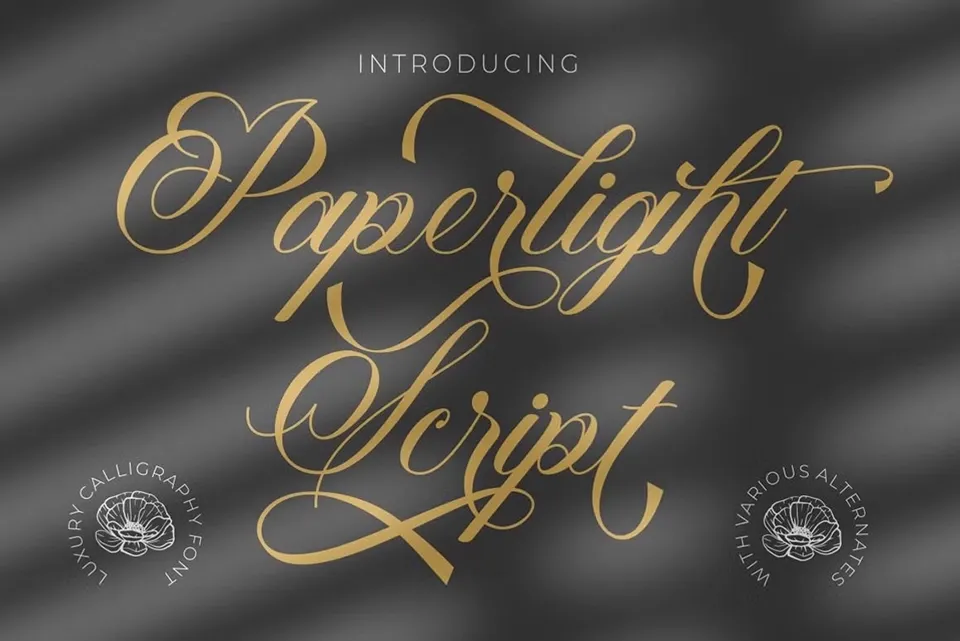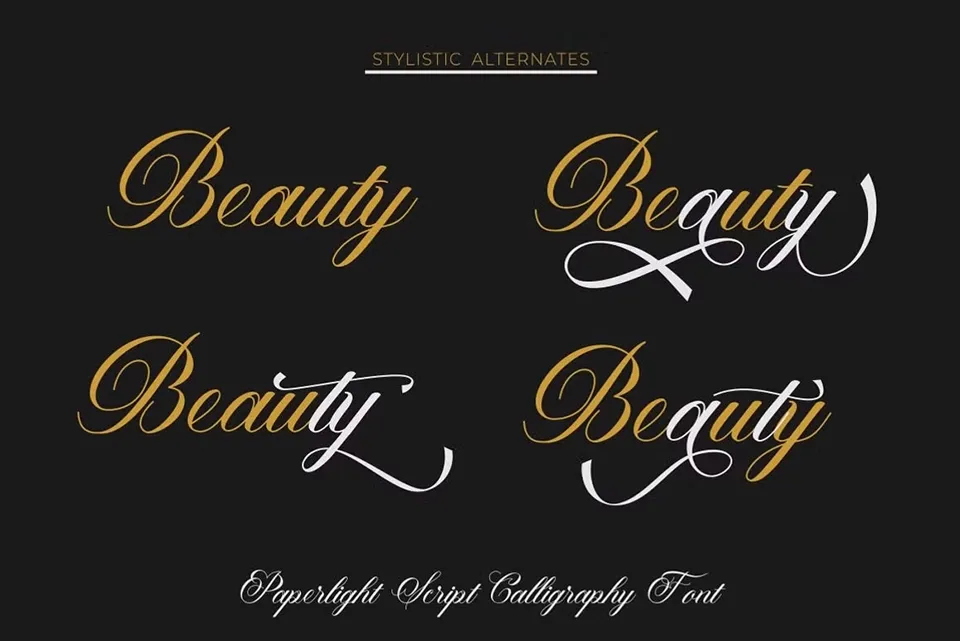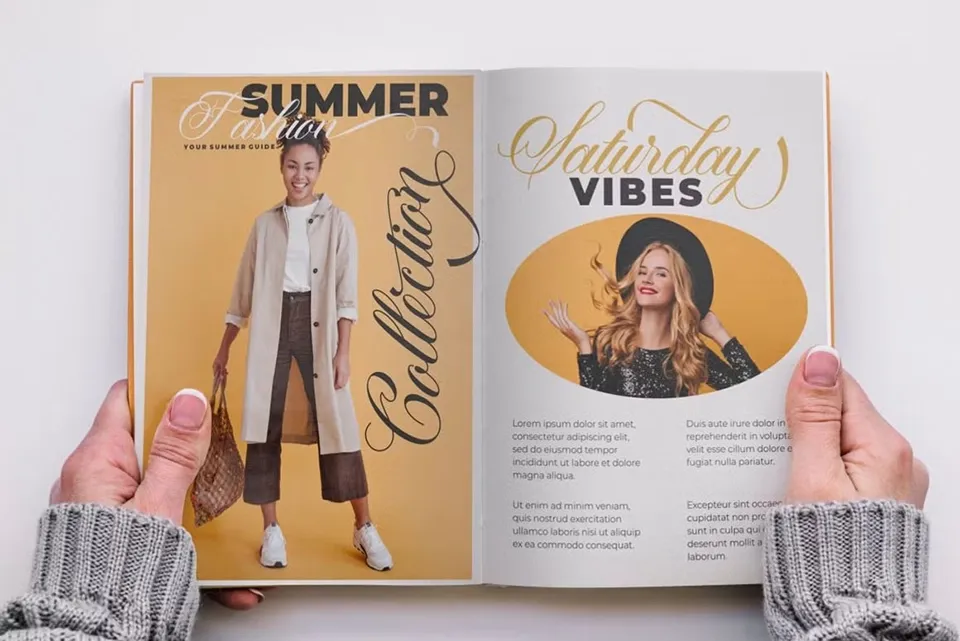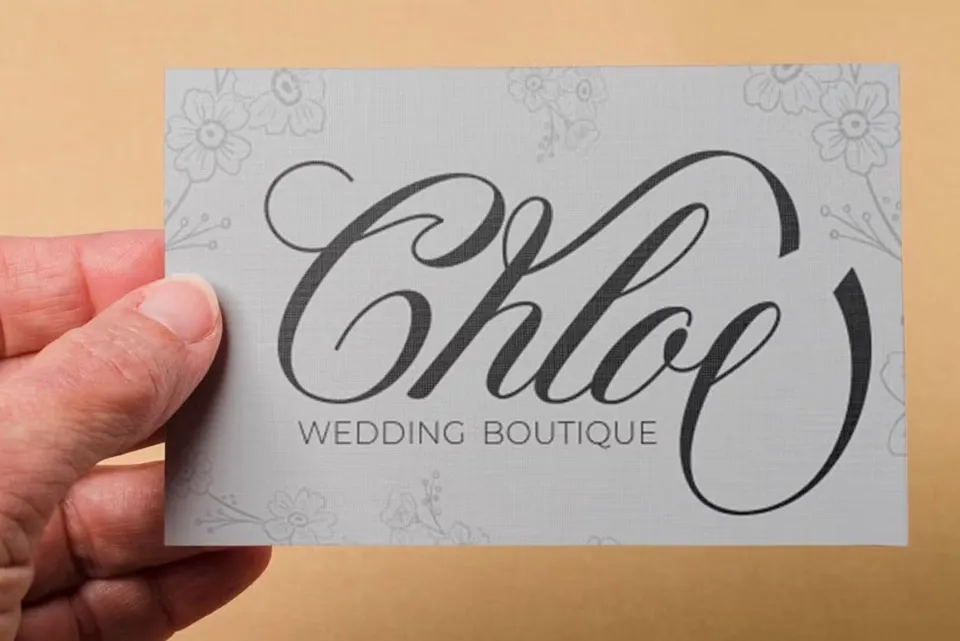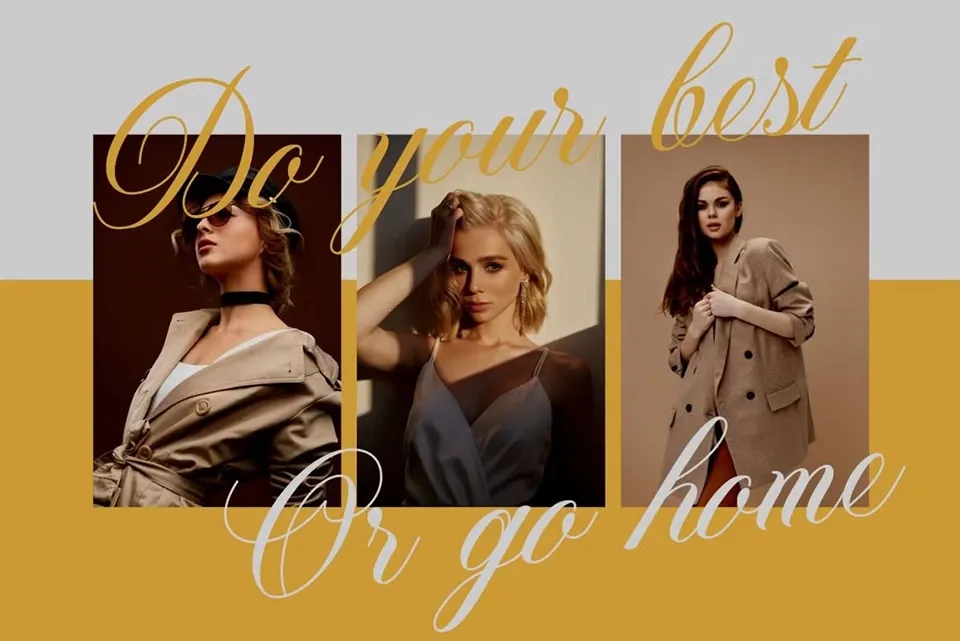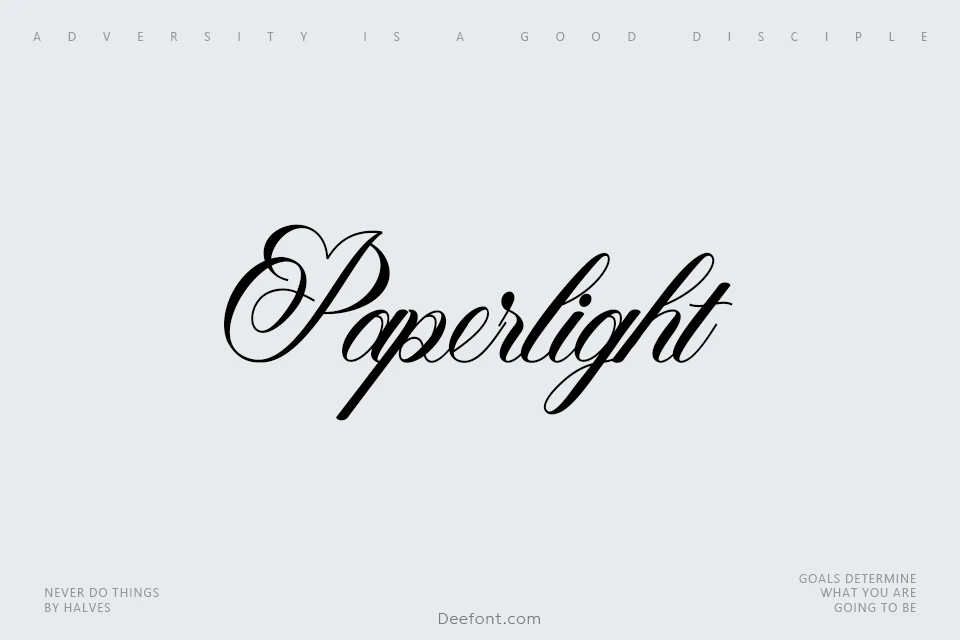
Paperlight Font
Paperlight Script is a luxury calligraphy font featuring a classic style with a touch of elegance, inspired by the graceful curves and flowing strokes of ancient manuscript handwriting. Perfect for branding, invitations, and any project that demands a sophisticated, handwritten look.